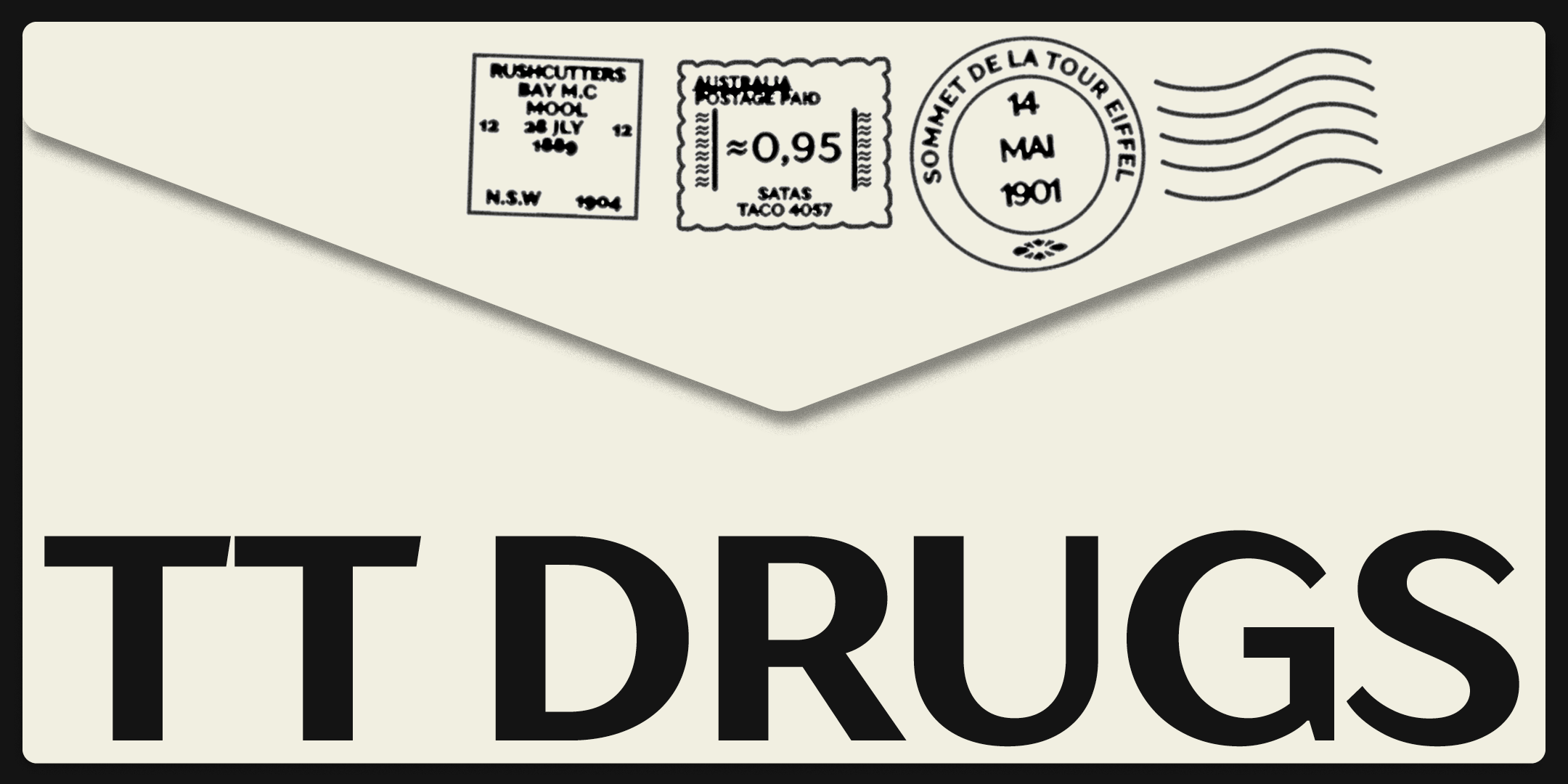
TT Drugs Font is perfect for creative design applications including music album covers, fashion branding, streetwear graphics, urban poster designs, nightclub promotions, artistic logos, experimental typography projects, and contemporary art installations. This bold typeface excels in projects that demand a strong visual impact and edgy aesthetic.
What makes TT Drugs Font exciting is its rebellious character and unconventional design approach that challenges traditional typography norms. The font features distinctive letterforms with unique geometric constructions and unexpected details that create a memorable visual experience. Its avant-garde style captures attention instantly and communicates innovation and creativity.
The TT Drugs Font family includes various weights and experimental variations such as Regular, Bold, Outline, Shadow, and Distressed versions. Each style maintains the font's characteristic personality while offering different levels of visual intensity for diverse design applications and creative expressions.
This cutting-edge typeface represents the intersection of street culture and high-end design aesthetics. Creative professionals choose TT Drugs Font Free Download for projects that require unconventional typography solutions. The font's distinctive character makes it ideal for brands and artists who want to stand out from conventional design approaches. Its experimental nature and bold presence ensure maximum visual impact in advertising campaigns, artistic projects, and brand identities that embrace alternative design philosophies.